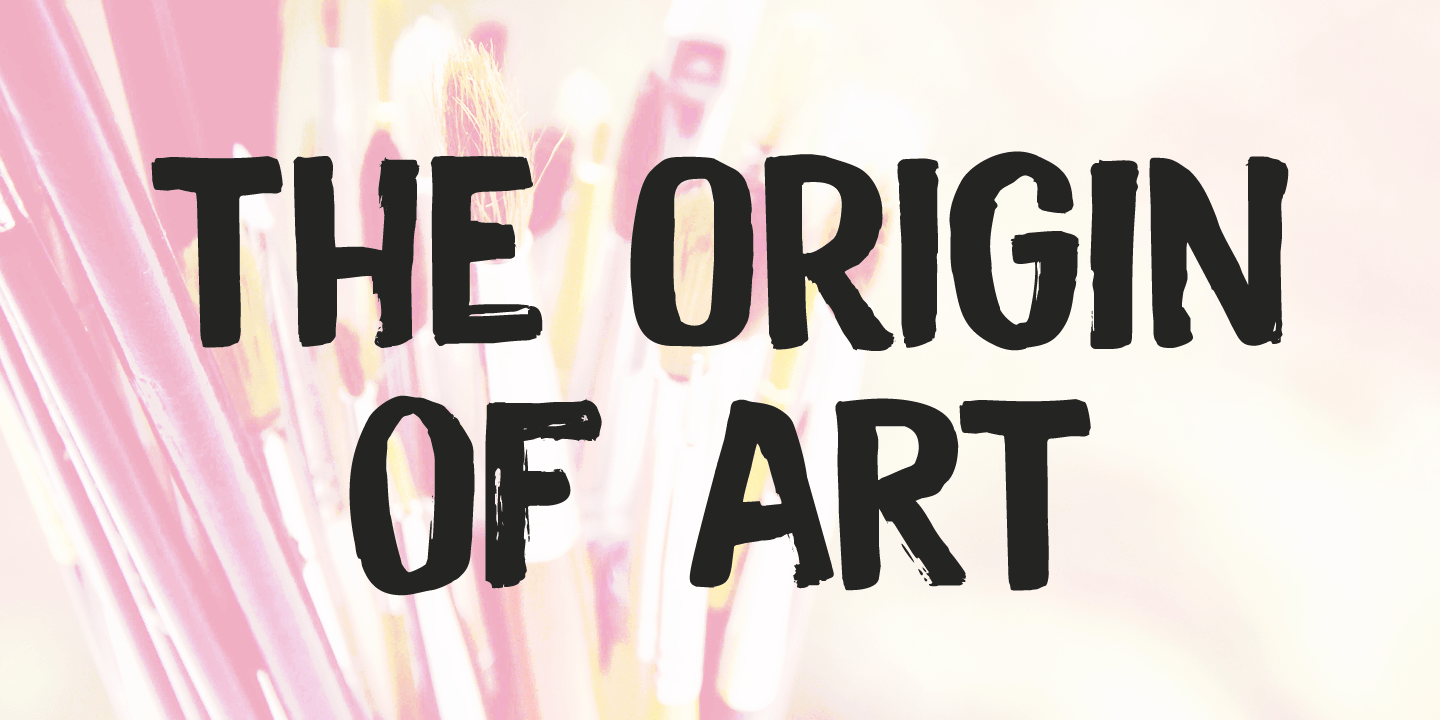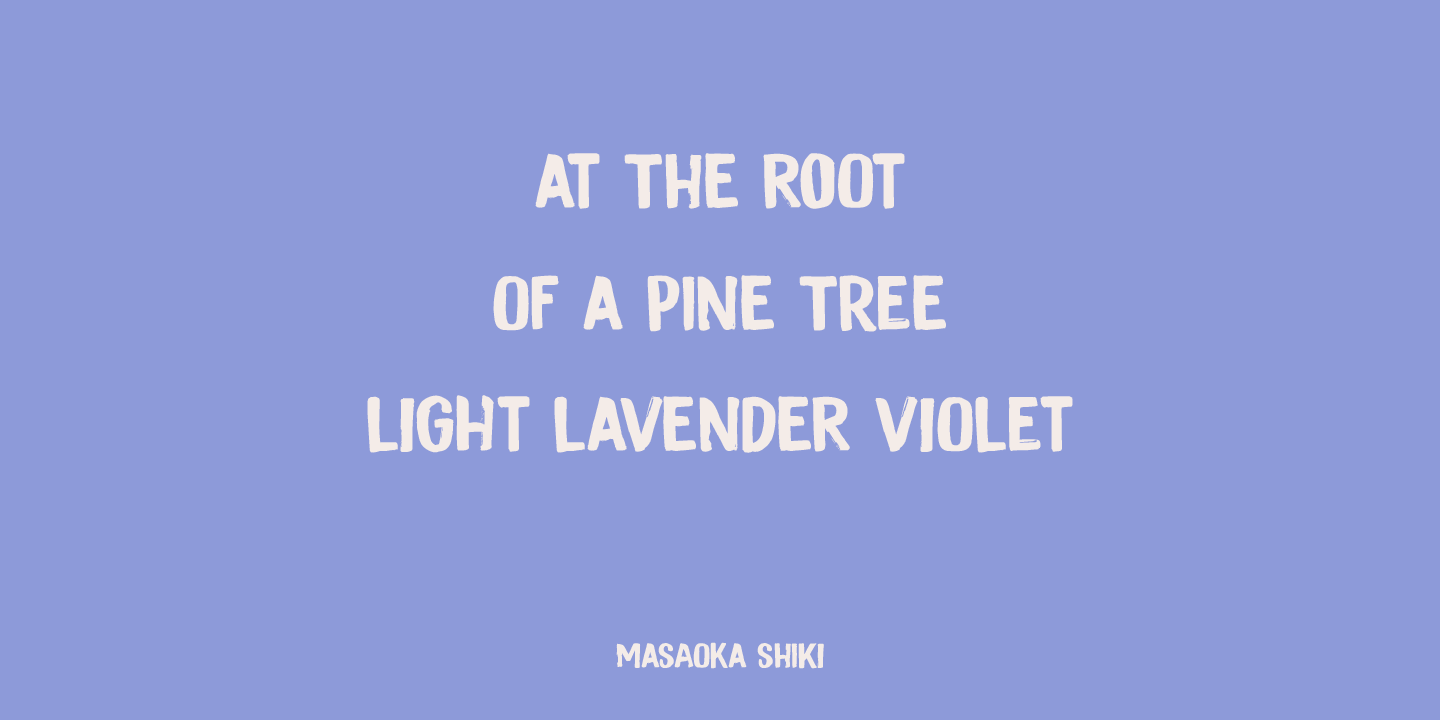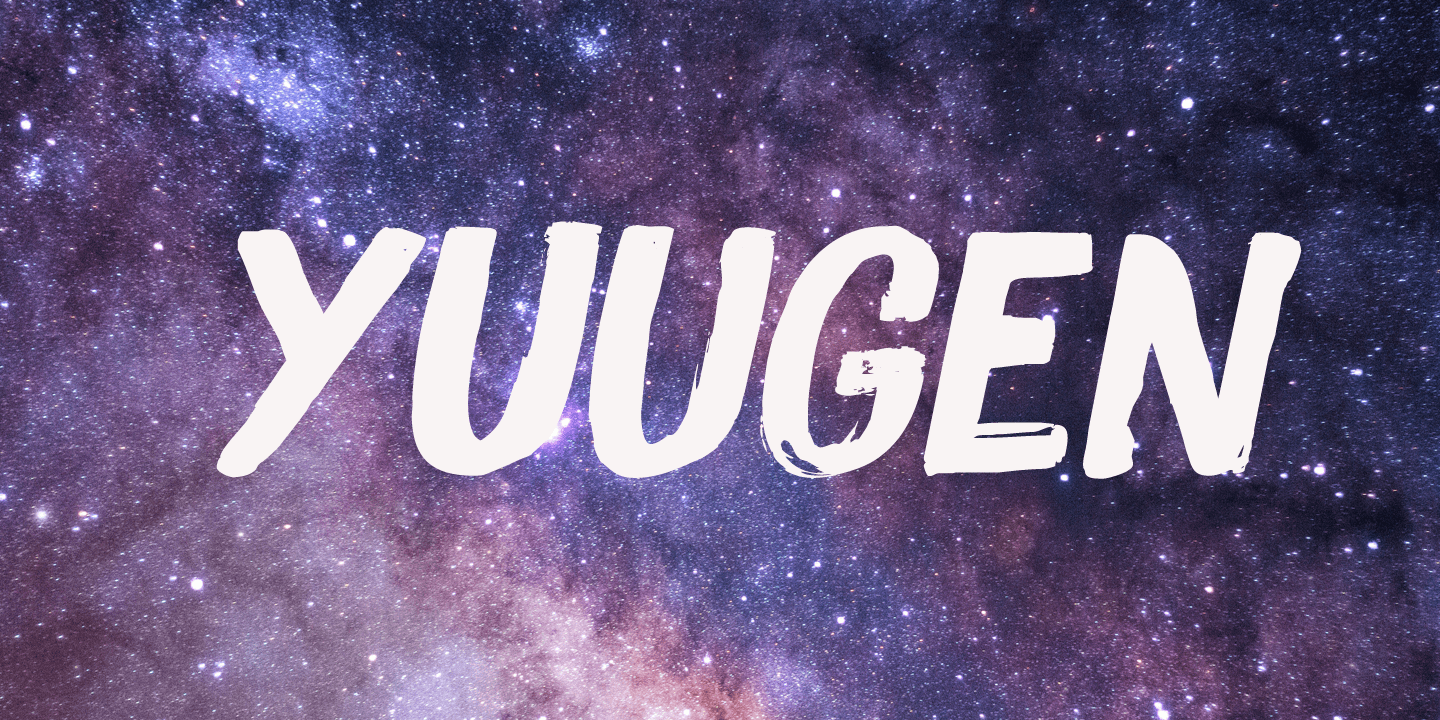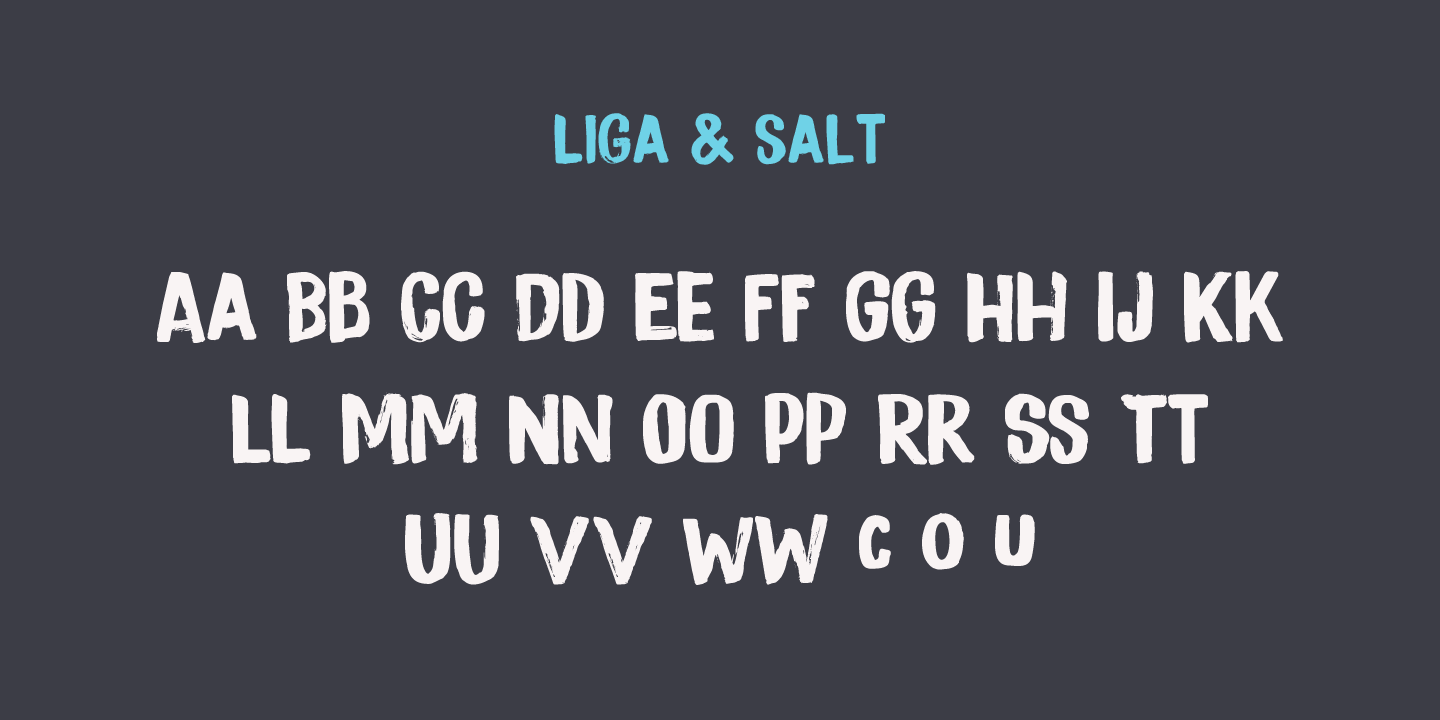
Studio Brush
Font Family by Hanoded
I really enjoy making brush fonts. I usually just get my Chinese ink and a bunch of brushes and start drawing glyphs. It took some time to get Studio Brush right, but I think spending that extra time paid off.
Studio Brush is quite a neat brush font: the glyphs of this all caps font are of equal height (more or less) and complement each other perfectly. Studio Brush comes with double letter ligatures and some alternate glyphs.